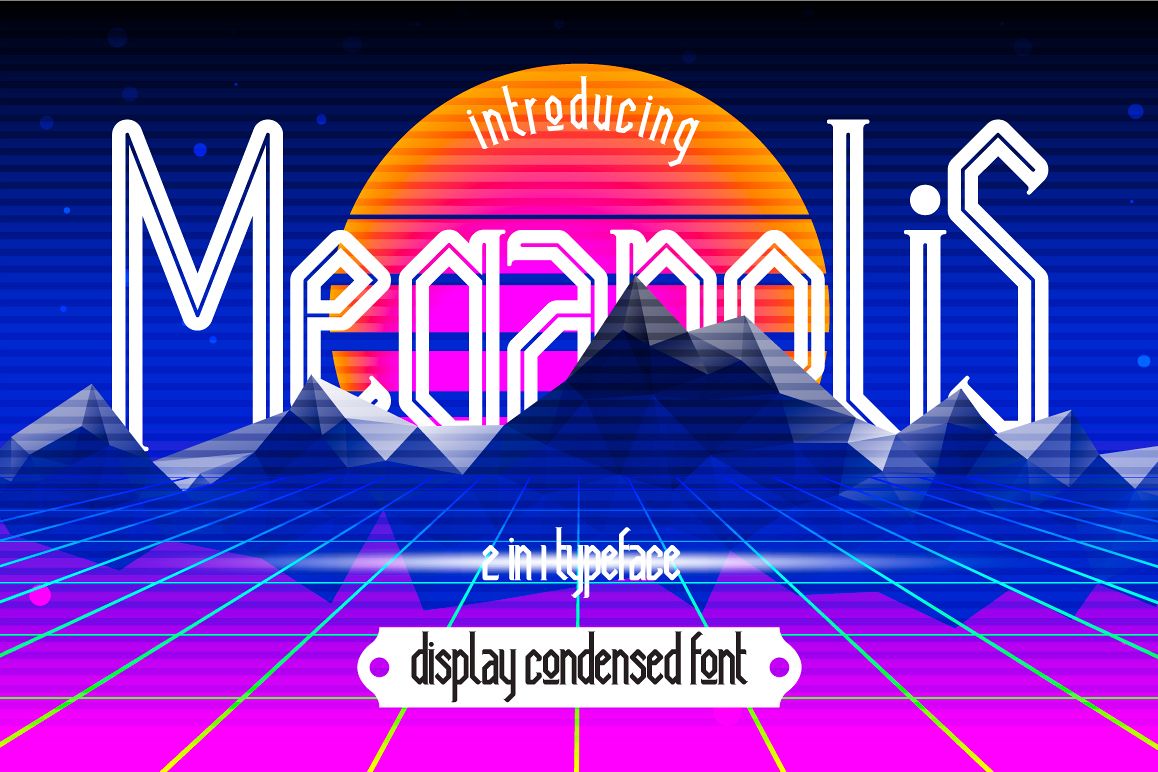
Megapolis
Introduce Megapolis typeface family - modern display condensed font, is suitable for simple logo design, website header, wedding design, menu fonts for website. to design fashion, and others. Good for vintage theme.Main Files :